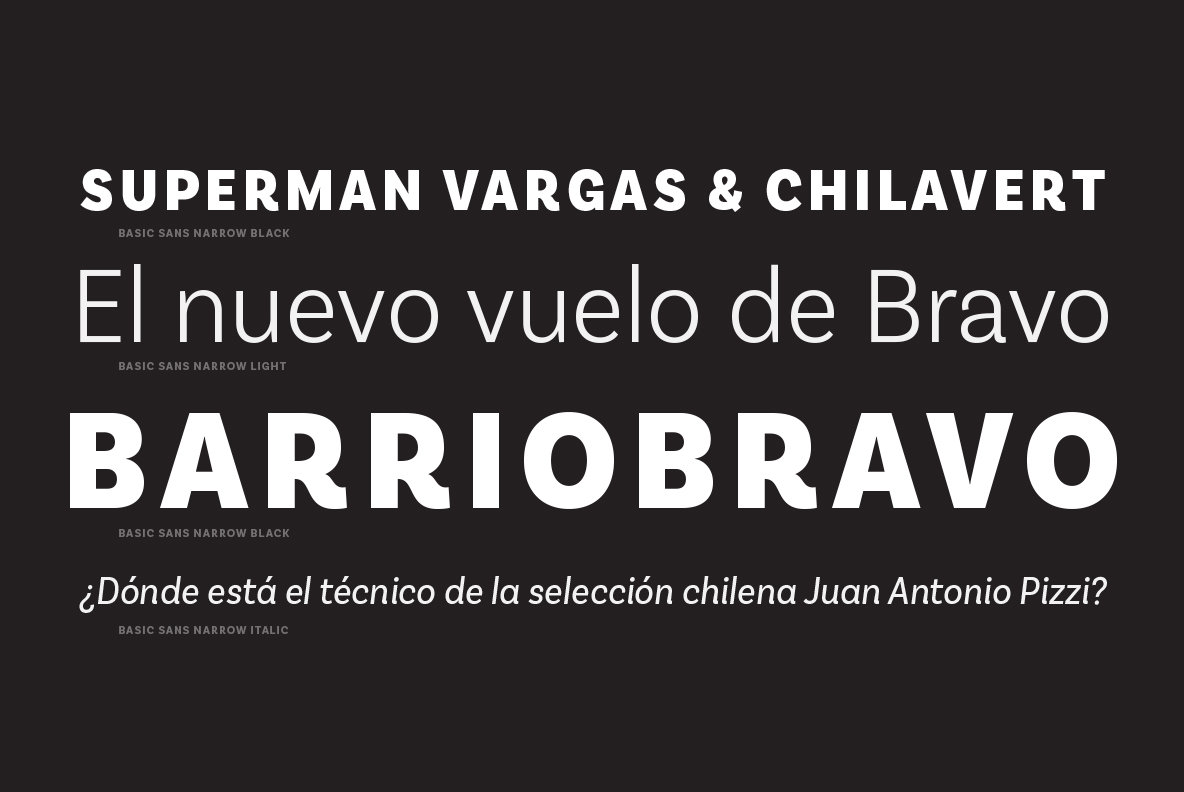
Basic Sans Narrow Font
Basic Sans Narrow is a narrower version of Basic Sans. It is a family of Grotesque features with a functional, neutral and seeming clean style that looks to keep a neutral (or basic) appearance on paper, but including lots of details that give it a unique personality.
Basic Sans Narrow is a sans-serif typeface well-suited for publishing projects, medium-sized text, branding, posters, headlines and more!
This font family comes in 7 weights—ranging from Thin to Black—plus matching italics and it has a set of 416 characters that support 206 different languages.